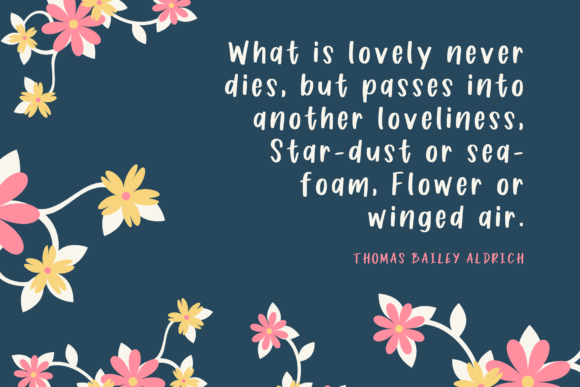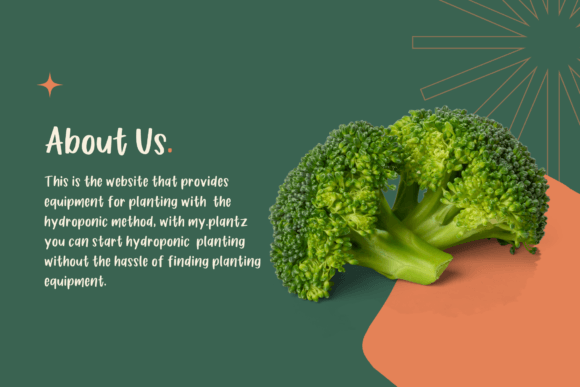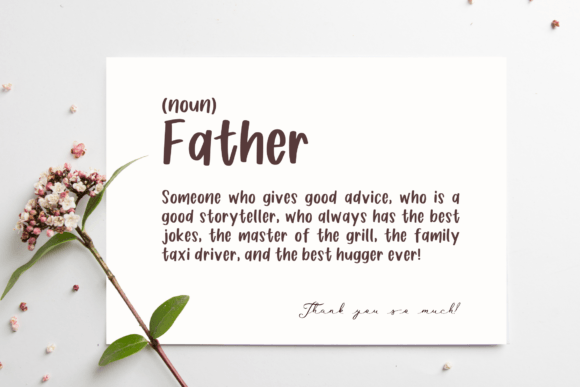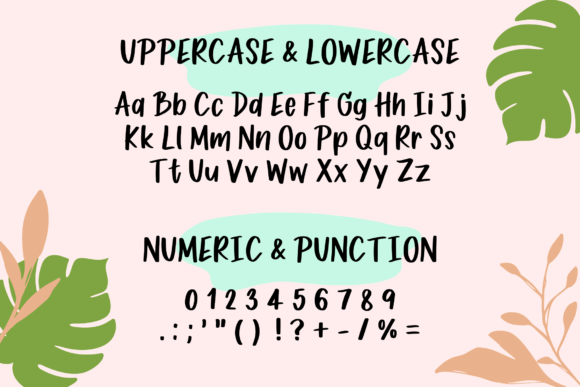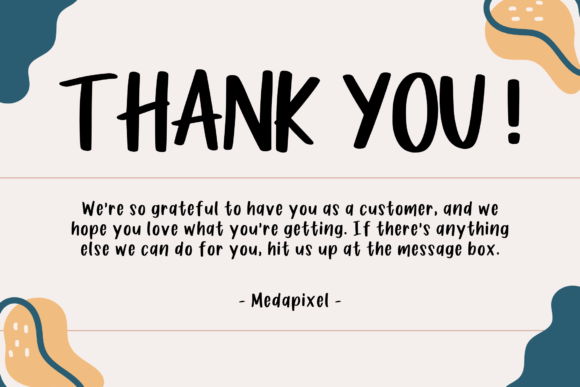
Whipped Font
About Whipped Font
Whipped is the playful hand-lettered font. Whipped is perfectly suited for any media and web, a great fit for quotes, detail, event, or activity. Compatible with tools such as Photoshop or Silhouette design studio. Its playfulness makes it great for creative projects.